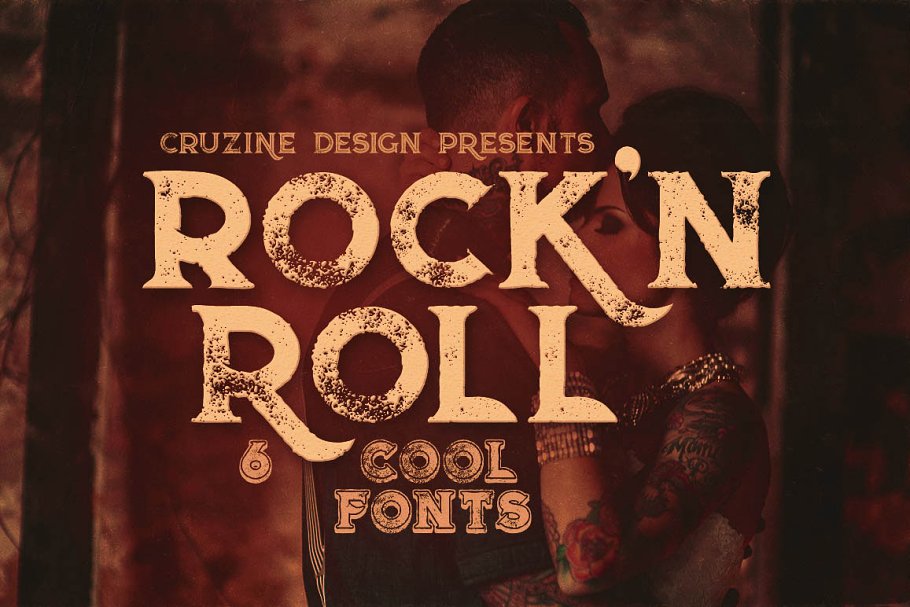
Introducing the Rock'n Roll Typeface, a font collection that will ignite your creative spark and bring your projects to life! Created by Cruzine Design, this font family is the perfect blend of creativity and boldness, making it ideal for grunge, retro, and vintage projects.
With 6 font files available in both otf and ttf formats, the Rock'n Roll Typeface offers a variety of styles to suit your needs. Whether you're looking for a regular or grunge effect, inline or inline grunge, or even a bold statement, this collection has got you covered.